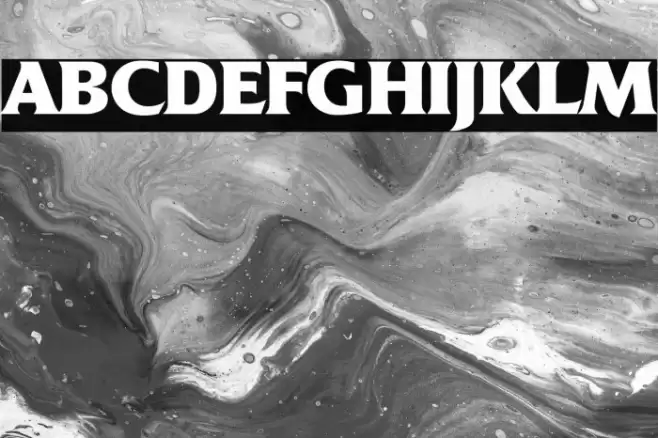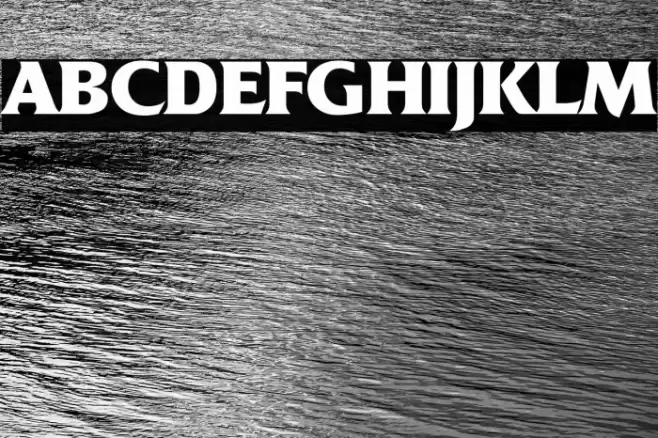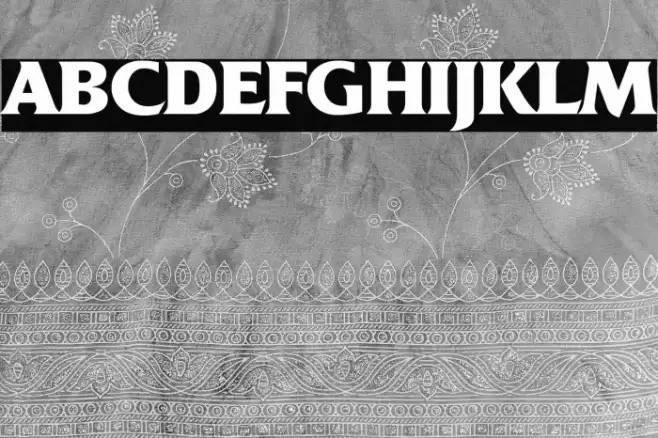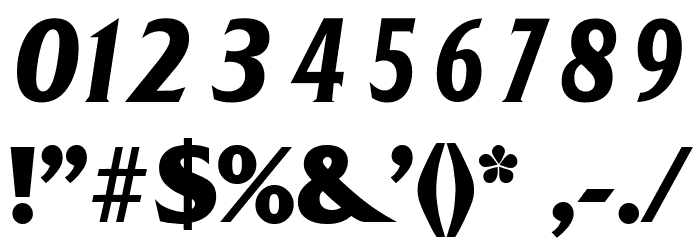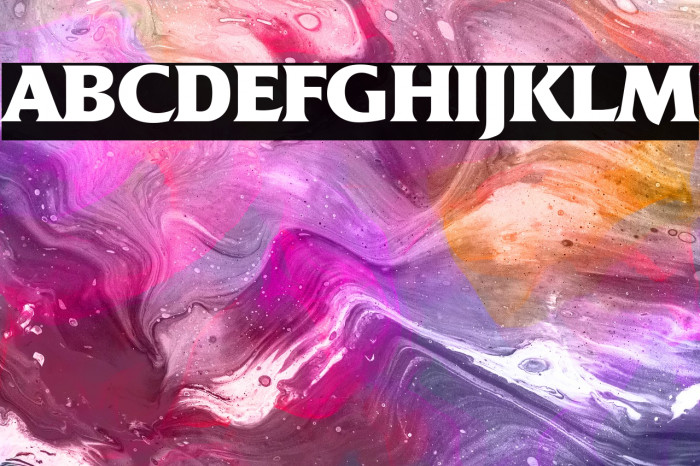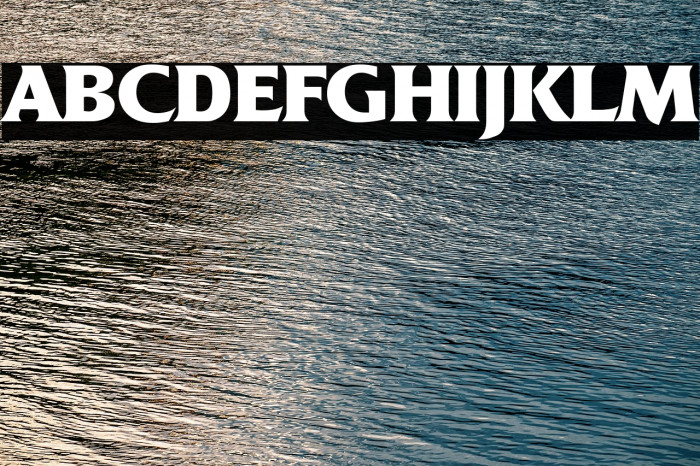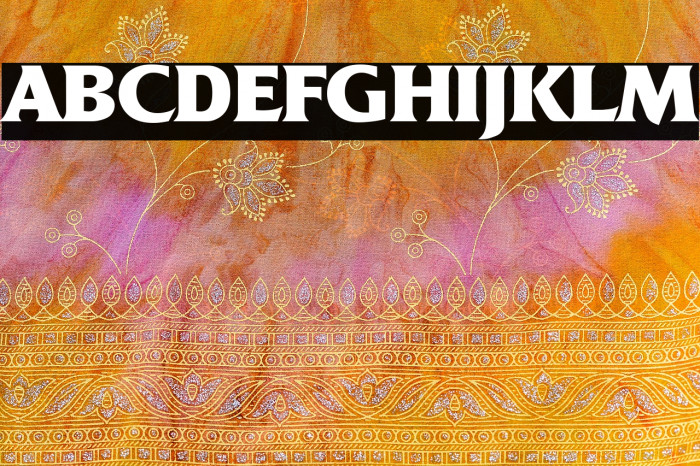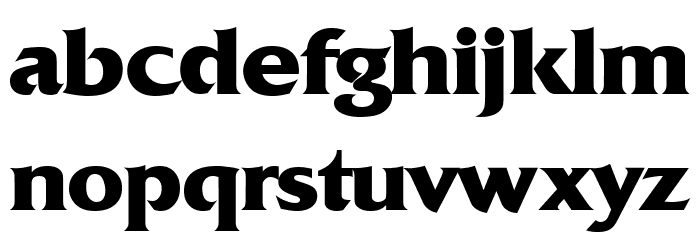
NCAA UTSA Roadrunners Font
NCAA UTSA Roadrunners Description
This font features a bold and dynamic style with strong, angular serifs and a robust presence. The uppercase letters are particularly striking, with a slightly condensed form that emphasizes their height and strength. The lowercase letters maintain a consistent weight, offering a harmonious balance with the uppercase. Numbers are clear and bold, ensuring readability. The special characters are well-integrated, maintaining the font's overall aesthetic. This font's design is both modern and classic, making it versatile for various applications.
A bold, dynamic serif font with strong, angular serifs and a robust presence.
- Proposed Projects: Ideal for sports branding, headlines, posters, and logos where a strong, impactful presence is needed.